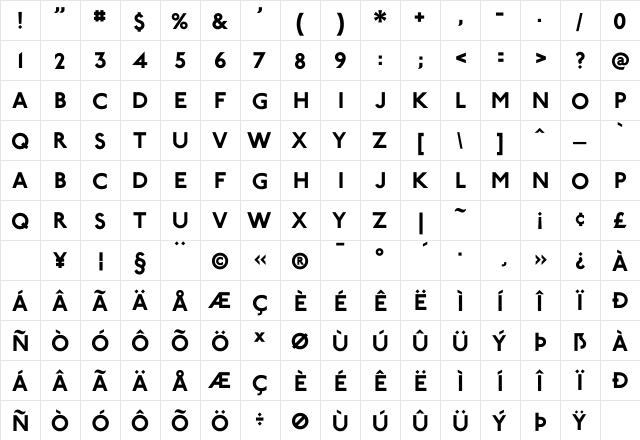
P22 Underground Bold Regular Font Preview
P22 Underground Bold Regular
Design Context for P22 Underground Bold Typeface
P22 Underground Bold softens its letterforms with rounded terminals, giving it an approachable, friendly quality that works well in consumer-facing and digital contexts. Its bold stroke weight gives it real presence on the page.
A natural fit for tech startups, health and wellness brands, children's products, and friendly consumer apps.
Font Pairing: Pairs well with a rounded or humanist sans for body copy, maintaining the friendly tone without relying on P22 Underground Bold to carry extended reading.
Pro Tip: Pair P22 Underground Bold with a geometric sans for a balanced system — the rounded softness works as a warm counterpoint to harder-edged companions.